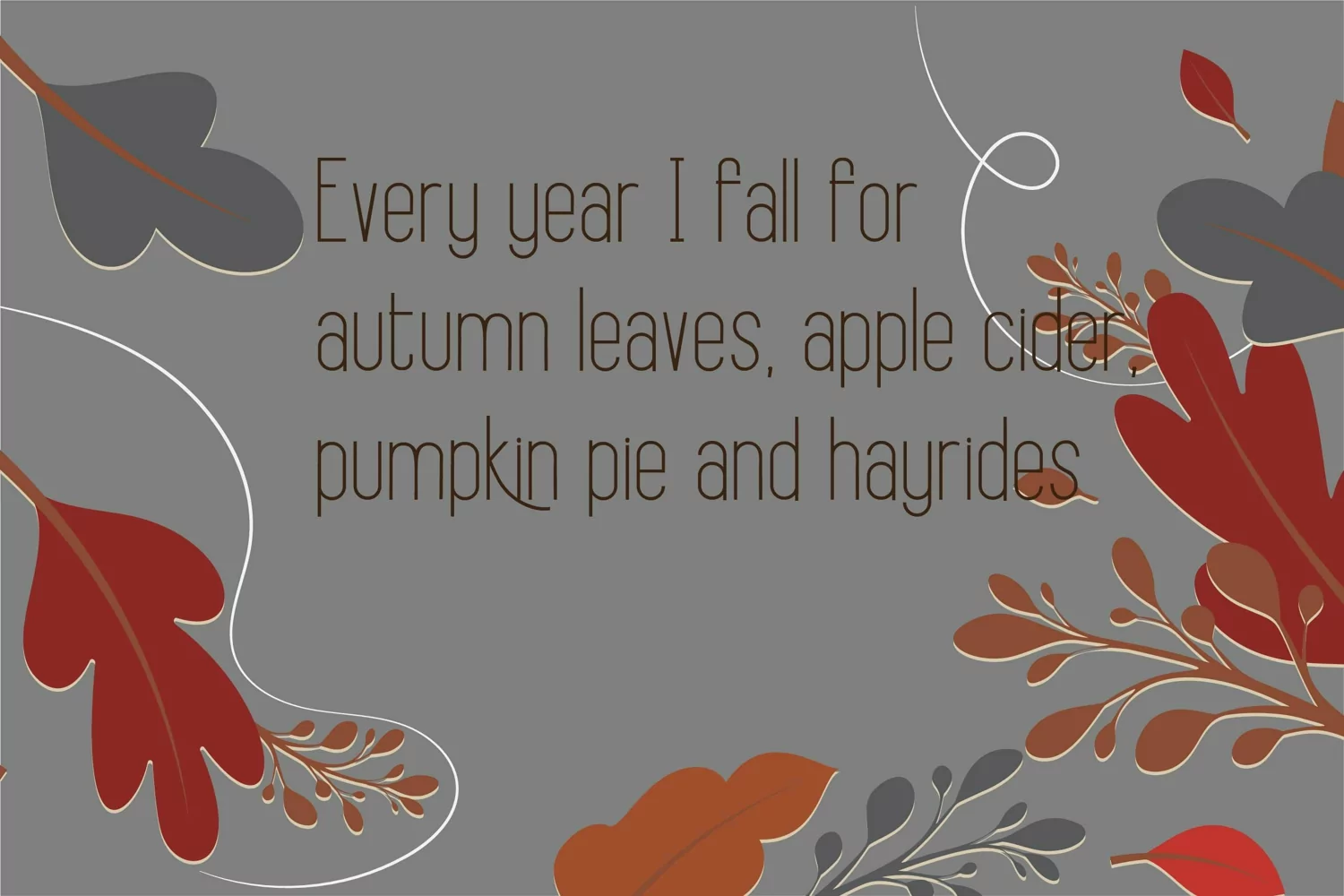
Crestridge is an elegant, delicate and thin lettered sans serif font. Masterfully designed to become a true favorite, this font has the potential to bring each of your creative ideas to the highest level! Includes regular, bold, and book.